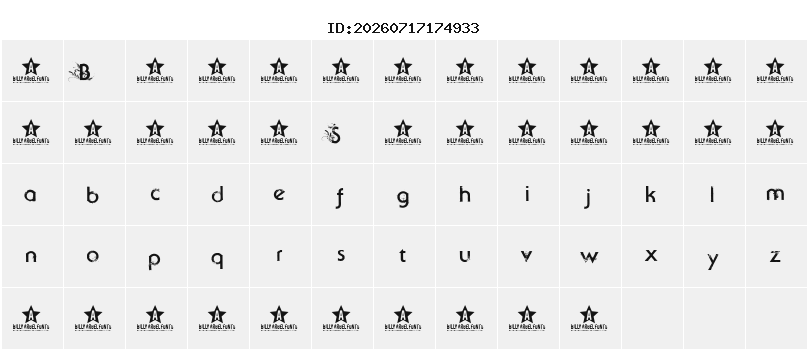
• Font Name: Beyond Sky
• Designer: Billy Argel
About Beyond Sky.ttf
Beyond Sky.ttf is a modern, elegant sans-serif font designed for ultimate readability and visual harmony. Perfect for branding, headlines, web design, and print materials.